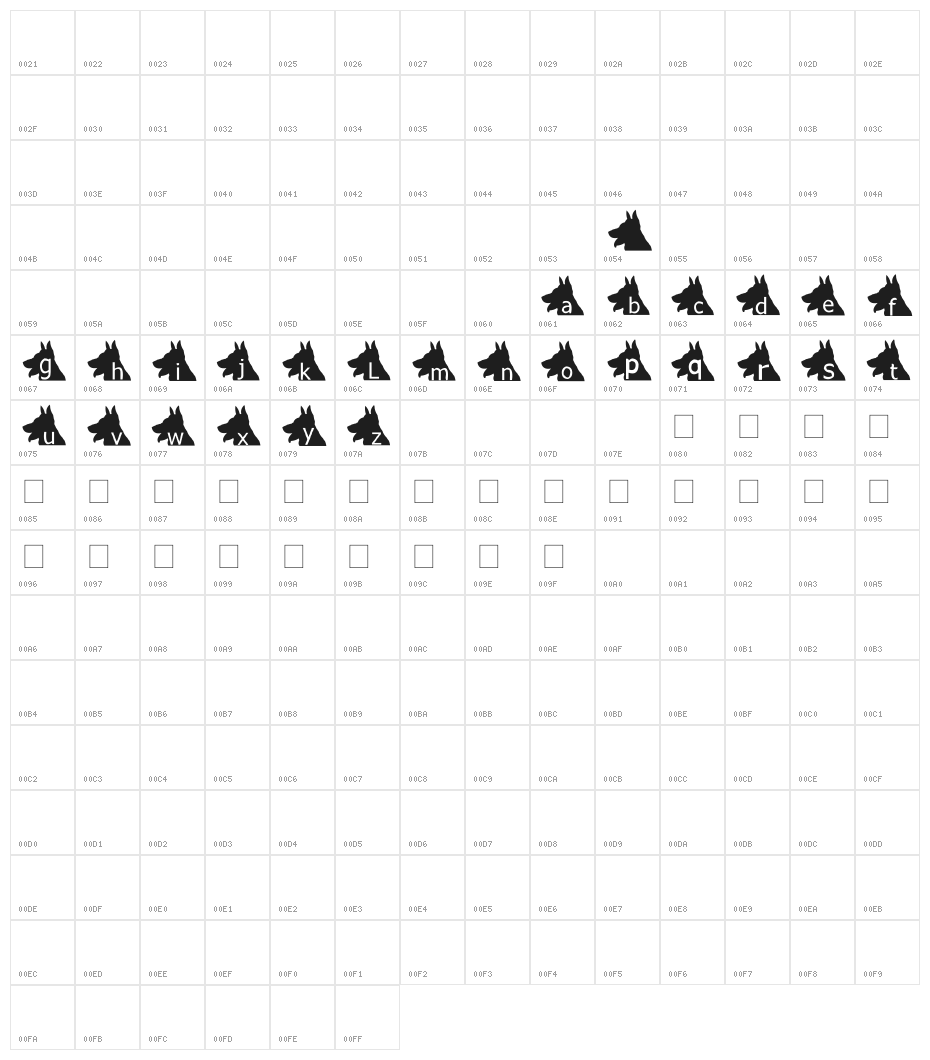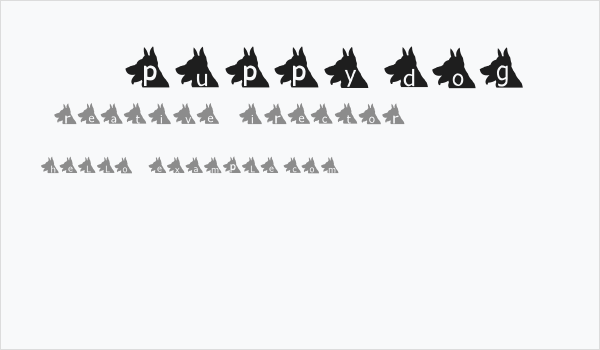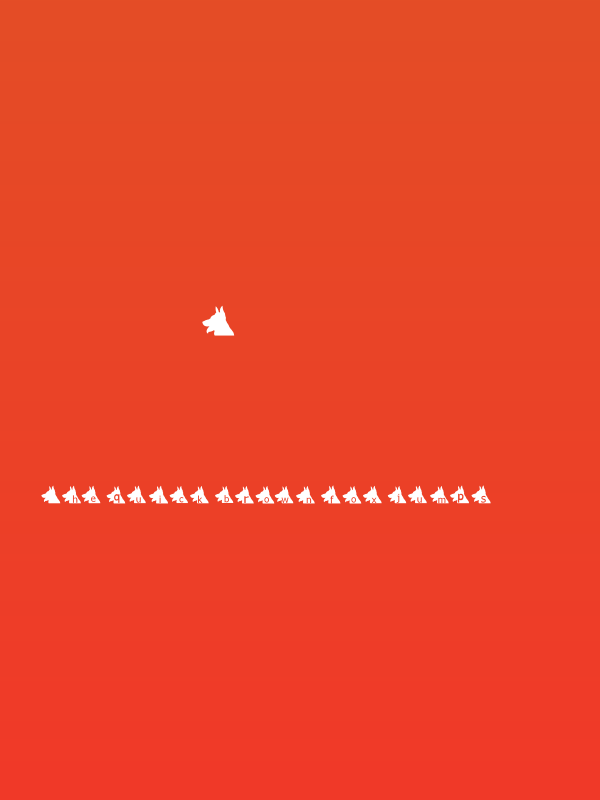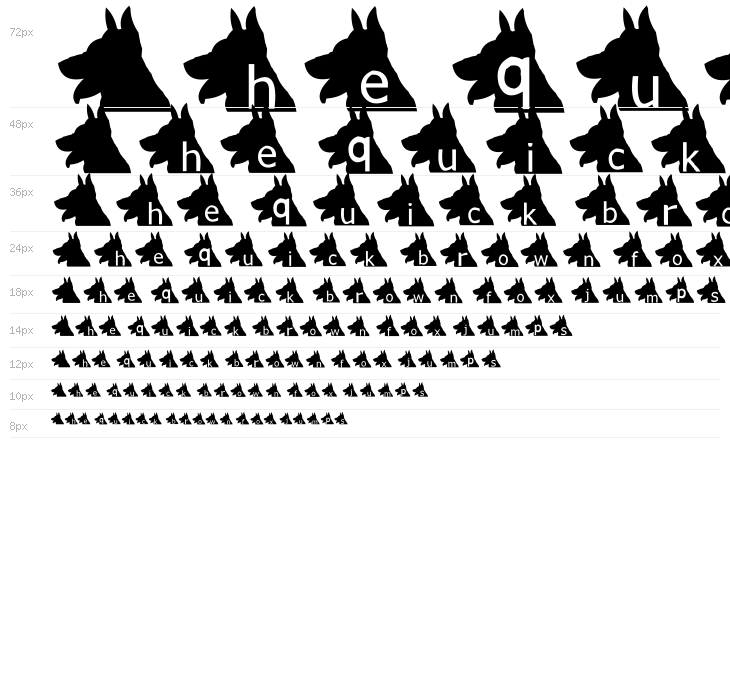
AEZ puppy dog Font
AEZ puppy dog Description
This playful and unique font features each letter embedded within the silhouette of a dog's head, creating a whimsical and eye-catching design. The letters are lowercase and centrally placed within the dog silhouette, which adds a fun and creative twist to the typography. The font is highly decorative, making it ideal for projects that require a touch of humor or a pet-related theme. The boldness of the dog silhouette contrasts with the lighter weight of the letters, ensuring readability while maintaining its distinctive style.
| Overall Style | Whimsical |
| Use Case | Logos, Posters, Branding |
| Proposed Projects | Ideal for pet store branding, children's book covers, playful posters, and animal-themed events. |